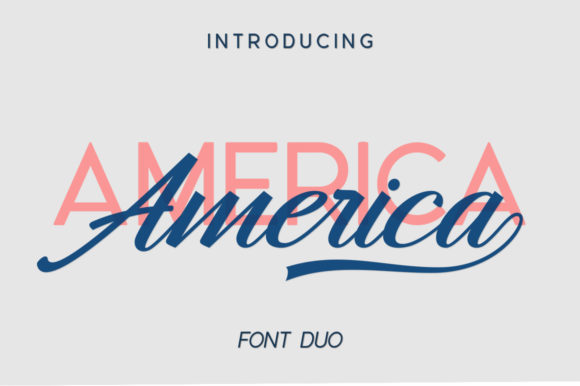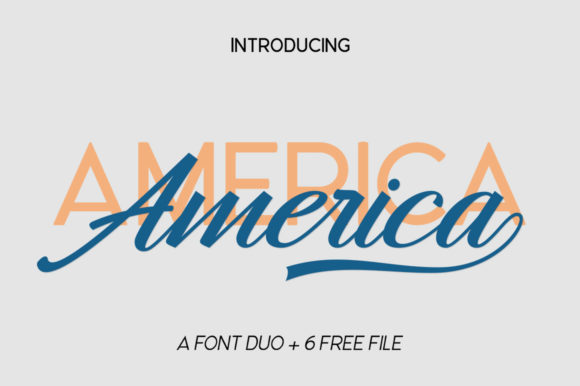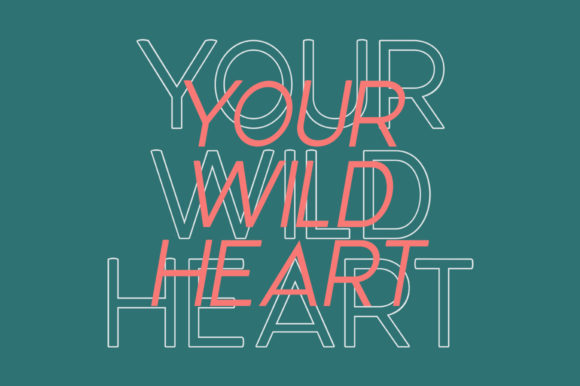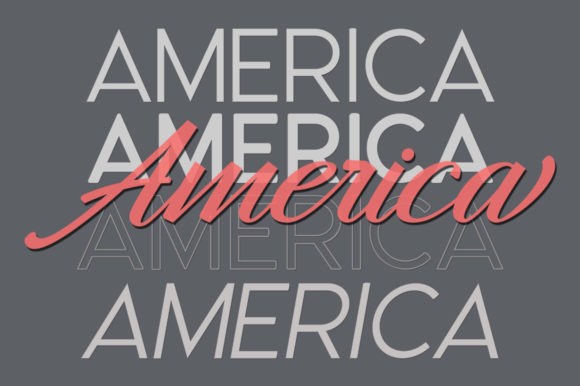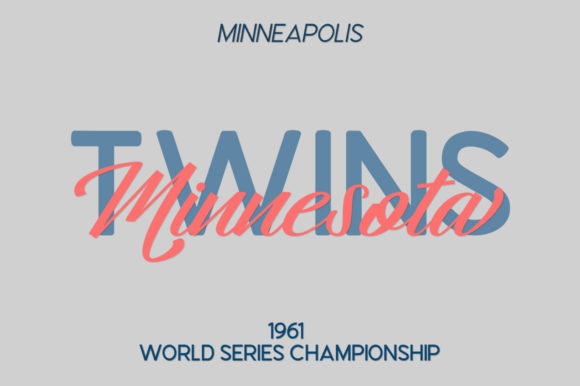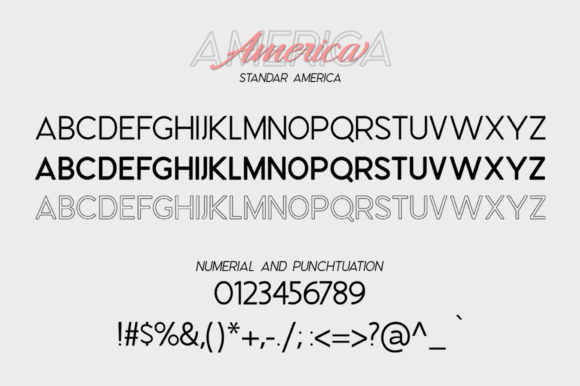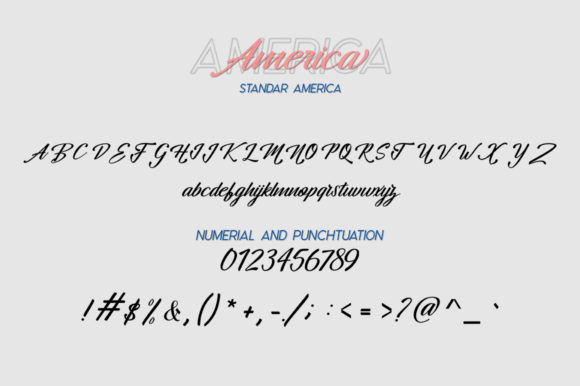
Hangberd America Duo Font
About Hangberd America Duo Font
America is a beautiful font duo that combines two trends – sleek sans serif caps and unique scripts – into one beautiful package.